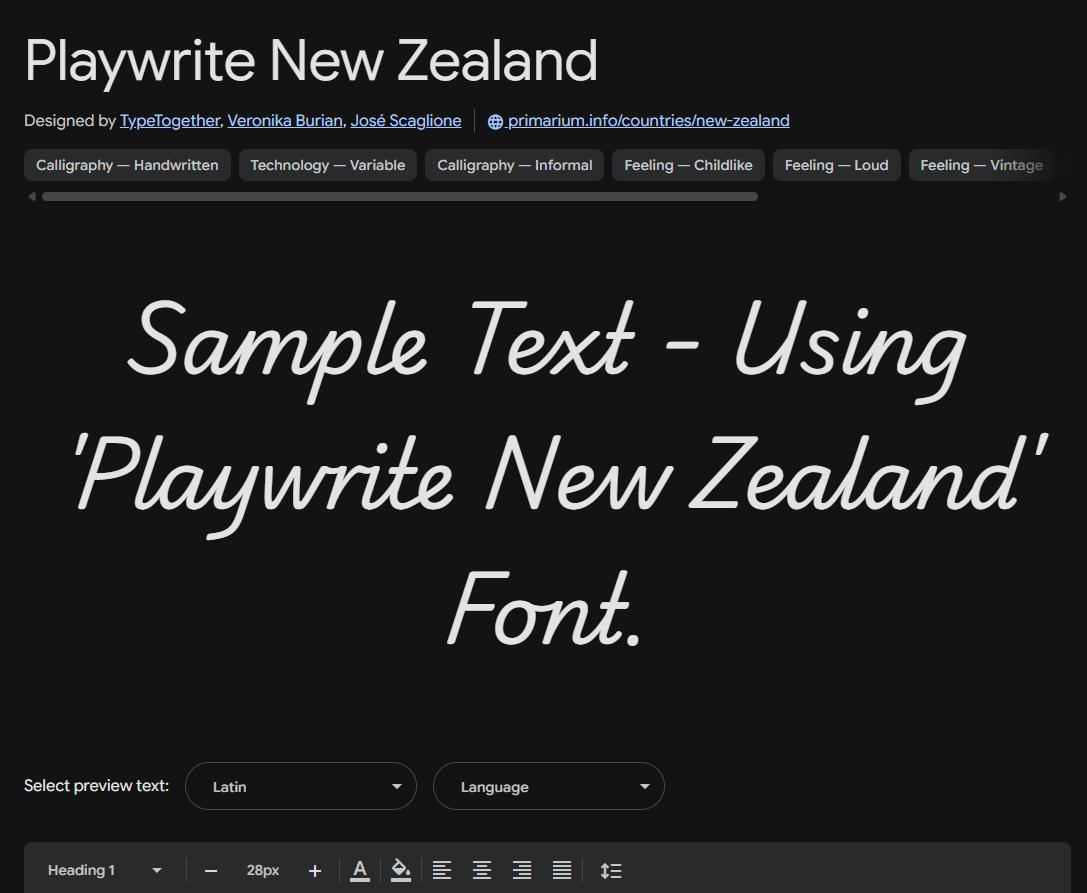
Playwrite New Zealand, a collaborative pedagogical tool developed by Veronika Burian and José Scaglione of TypeTogether, exemplifies the synthesis of regional educational standards and modern variable font technology. Engineered with a single axis of variation-typically focusing on weight-this typeface translates the specific primary school handwriting curriculum of New Zealand into a digital design space that utilizes smooth interpolation to maintain stroke consistency across its weight range. By implementing advanced OpenType features and precise glyph construction, Playwrite New Zealand offers a responsive typographic solution that adheres to strict formal scripts while allowing for the granular control of the font-variation-settings property, effectively reducing HTTP requests and CSS bloat compared to traditional static families while ensuring semantic clarity for early literacy development.
Playwrite New Zealand emerges as a groundbreaking variable font family that redefines the intersection of educational pedagogy and digital calligraphy through its sophisticated interpolation of informal, handwritten forms. By leveraging the versatility of variable technology, the typeface navigates a diverse design space that shifts from a playful, happy exuberance to a rugged, vintage texture, capturing the loud and energetic essence of childlike experimentation. This informal script serves as a semantic bridge, utilizing specific glyph constructions that reflect New Zealand's unique school-hand standards while maintaining a spirited, happy aesthetic. The font's ability to transition seamlessly between these emotive states-ranging from the nostalgic charm of vintage scripts to the bold presence of a loud, rugged stroke-highlights its role as a dynamic tool in the modern typographic landscape, merging the spontaneity of informal calligraphy with the technical rigor of contemporary font engineering.
The Playwrite New Zealand variable font, meticulously engineered by Veronika Burian and José Scaglione of TypeTogether, is fundamentally ill-suited for high-density information environments such as pharmaceutical labeling, aeronautical instrumentation, or complex financial spreadsheets due to its specific pedagogical architecture. While its single-axis weight variability expertly replicates the rhythmic joinery and cursive flow of the New Zealand primary school handwriting model, these very attributes introduce significant visual noise and high cognitive load in professional contexts requiring rapid lexical scanning or objective neutrality. The typeface's regionalized ligatures and "joined-up" anatomy-designed to support fine motor skill development-compromise optical legibility at small point sizes and low pixel densities, making it a liability for safety-critical UI/UX design where standardized vertical metrics and geometric clarity are essential for minimizing data interpretation errors.
While its school-hand style offers charm, Playwrite New Zealand is generally unsuitable for extensive body text due to the visual fatigue caused by its decorative cursive strokes. Empirical legibility studies indicate that the high frequency of complex ligatures and variable character widths increases cognitive load, making it better suited for short display snippets than dense paragraphs.
Clean, geometric sans-serifs like Montserrat or Roboto provide a stable visual anchor that balances the fluid, handwritten energy of this font. Establishing a high x-height contrast between the script and a neutral grotesque typeface ensures optical stability while maintaining a clear typographical hierarchy in multi-layered layouts.
This font is specifically designed to reflect regional pedagogical standards, making it an excellent choice for literacy tools and classroom handouts. By adhering to the specific glyph shapes required by the New Zealand Ministry of Education curriculum, the typeface facilitates better motor memory development during early letterform recognition phases.
In print applications, the delicate joins and varying stroke weights can become muddled if the font size drops below 10 points. Technical analysis of the glyph outlines reveals that the thin connective strokes risk ink spread issues on porous paper, necessitating a minimum threshold for the point size to preserve the integrity of the cursive loops.
The distinct personality of the cursive script naturally draws the eye, making it effective for secondary headings or stylistic callouts. Because it lacks the formal weight of a traditional bold serif, it often functions better as an H2 or H3 element where its script-based character can contrast against a dominant, heavier primary title.
Organic, minimalist, and craft-oriented designs harmonize effectively with the humanistic and personal feel of this typeface. Integrating the font within a whitespace-heavy layout utilizes its organic vector paths to break the rigidity of modern grid systems, creating a more approachable user experience.
Using this typeface for interactive elements in mobile apps can be risky because script fonts often lack the immediate scannability required for navigation. To ensure accessibility compliance under WCAG guidelines, the font should be restricted to decorative titles rather than functional UI components where high-speed character recognition is paramount.
It serves as a strong foundation for brands seeking a friendly, local, or educational identity through its authentic New Zealand script style. Designers can leverage the variable font technology to fine-tune the weight parameters, allowing for custom logo iterations that maintain vector precision across both digital and physical brand touchpoints.
On high-resolution OLED and Retina displays, the font maintains its smooth curves and elegant transitions without noticeable pixelation. However, at high contrast ratios, the thin strokes may trigger visual artifacts for users with astigmatism, suggesting a need for softer color palettes to improve overall visual comfort.
The availability of various weights allows designers to shift from delicate, light strokes to more assertive, thicker lines within a single project. This flexibility in the font's design space enables precise control over the typographic "color" of the text block, optimizing the visual density to match the specific aesthetic requirements of the layout.